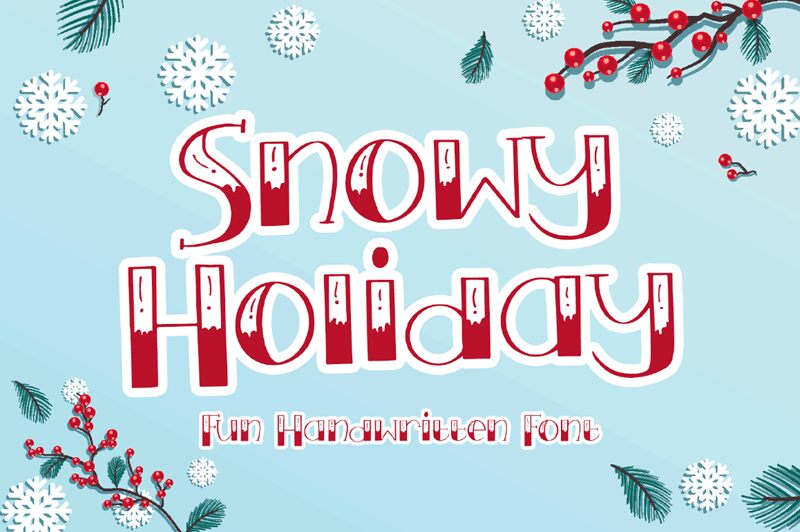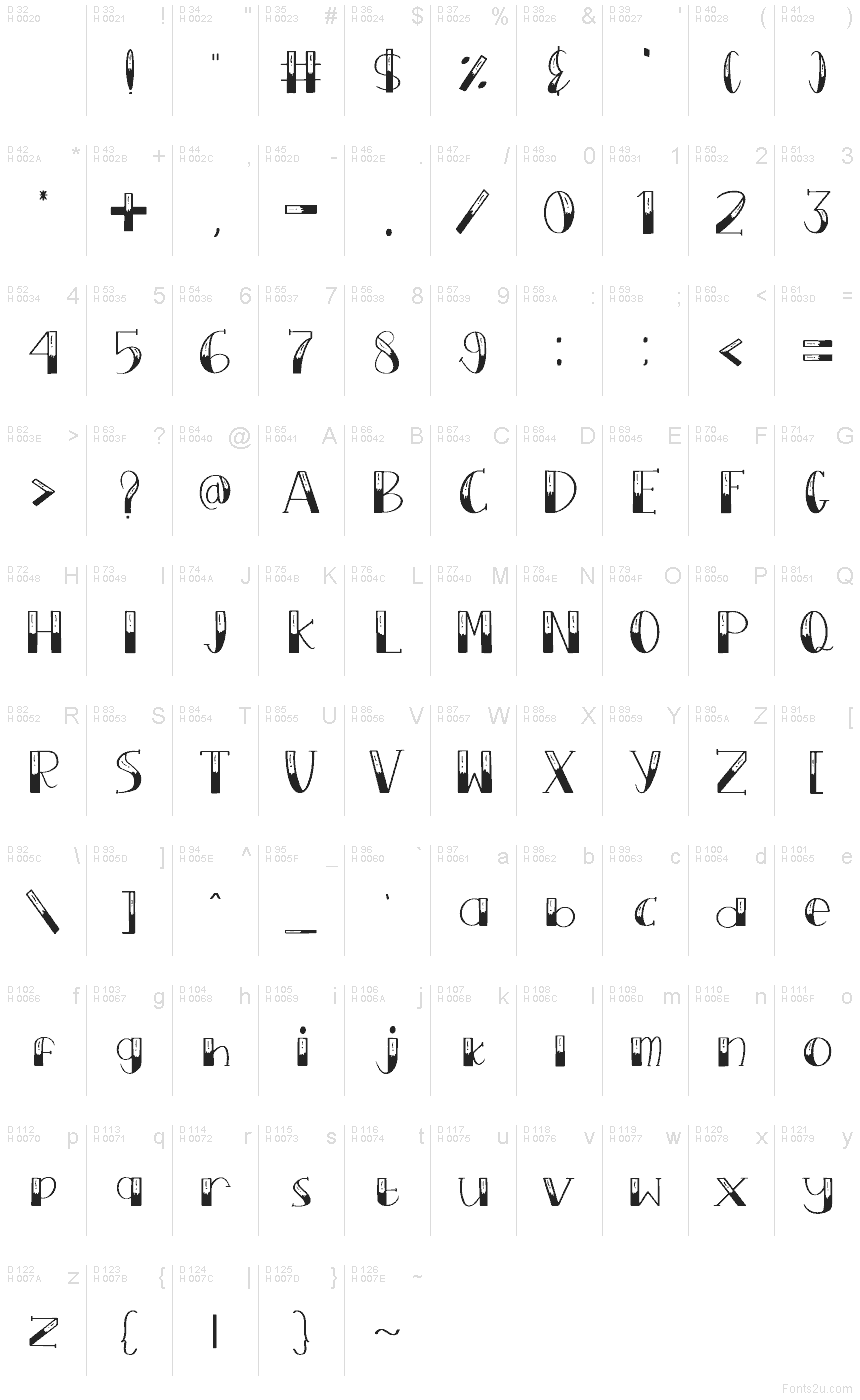
Snowy Holiday
Snowy Holiday font by Phantom Studio is a free decorative display typeface that bottles up that freshly fallen snow feeling. Tall, slender letters are filled with bold black blocks and frosty white sections, dusted with tiny snow dots and playful cutouts that look like flurries drifting past a window. The contrast between solid shapes and airy interiors gives every word a festive, hand-crafted charm that pops instantly on the page or screen.
Using Snowy Holiday, your headlines feel like they’ve been written in snow—cheerful, cozy, and a little bit whimsical. This free font shines on Christmas cards, winter festival posters, party invitations, gift tags, social media graphics, and seasonal shop signage. For easy readability, pair it with a simple geometric sans-serif for body copy and let Snowy Holiday take center stage at larger sizes.